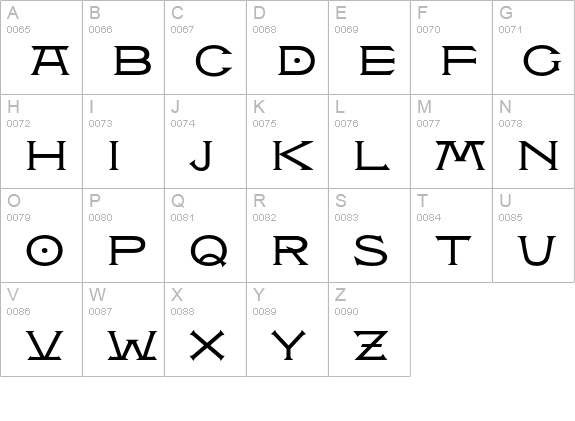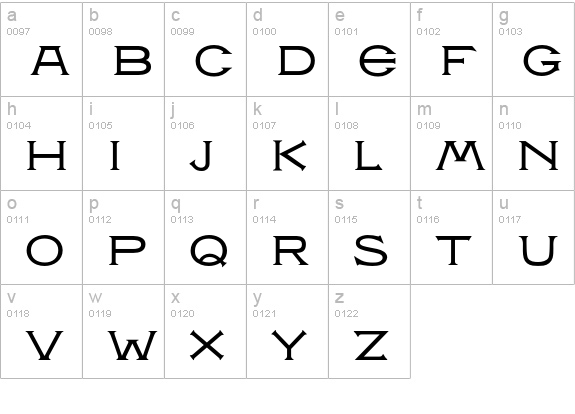
P22Victorian-Gothic Font Details
Introducing the captivating P22Victorian-Gothic font, a harmonious fusion of the elegant Victorian era and the mysterious allure of gothic aesthetics. This meticulously crafted typeface is a true masterpiece, meticulously designed to transport you to a bygone era, where ornate details and intricate flourishes were the epitome of style. P22Victorian-Gothic font exudes an air of sophistication and grandeur, with its meticulously crafted letterforms and delicate serifs. Each character is a work of art, meticulously adorned with intricate details that evoke a sense of nostalgia for the opulence and refinement of the Victorian era. The graceful curves and fine lines of this font make it a perfect choice for projects that require a touch of old-world charm and sophistication. What sets P22Victorian-Gothic font apart is not only its exquisite design but also its availability as a free download on FontsMarket.com. Yes, you read that right - this stunning font can be yours without any cost. Now, you can effortlessly add a touch of Victorian elegance and gothic mystique to your designs, without breaking the bank. Whether you're designing a vintage-inspired wedding invitation, a gothic novel cover, or simply adding a touch of elegance to your branding, P22Victorian-Gothic font is the ideal choice. Its versatility and timeless appeal make it suitable for a wide range of creative projects, allowing you to explore your artistic vision without limitations. Download P22Victorian-Gothic font today from FontsMarket.com, and unlock a world of endless creative possibilities. Immerse yourself in the enchanting beauty of the Victorian era and embrace the allure of gothic aesthetics, all while enjoying the freedom of a free font that doesn't compromise on quality. Let P22Victorian-Gothic font become your go-to typeface for adding a touch of timeless elegance and sophistication to your designs.